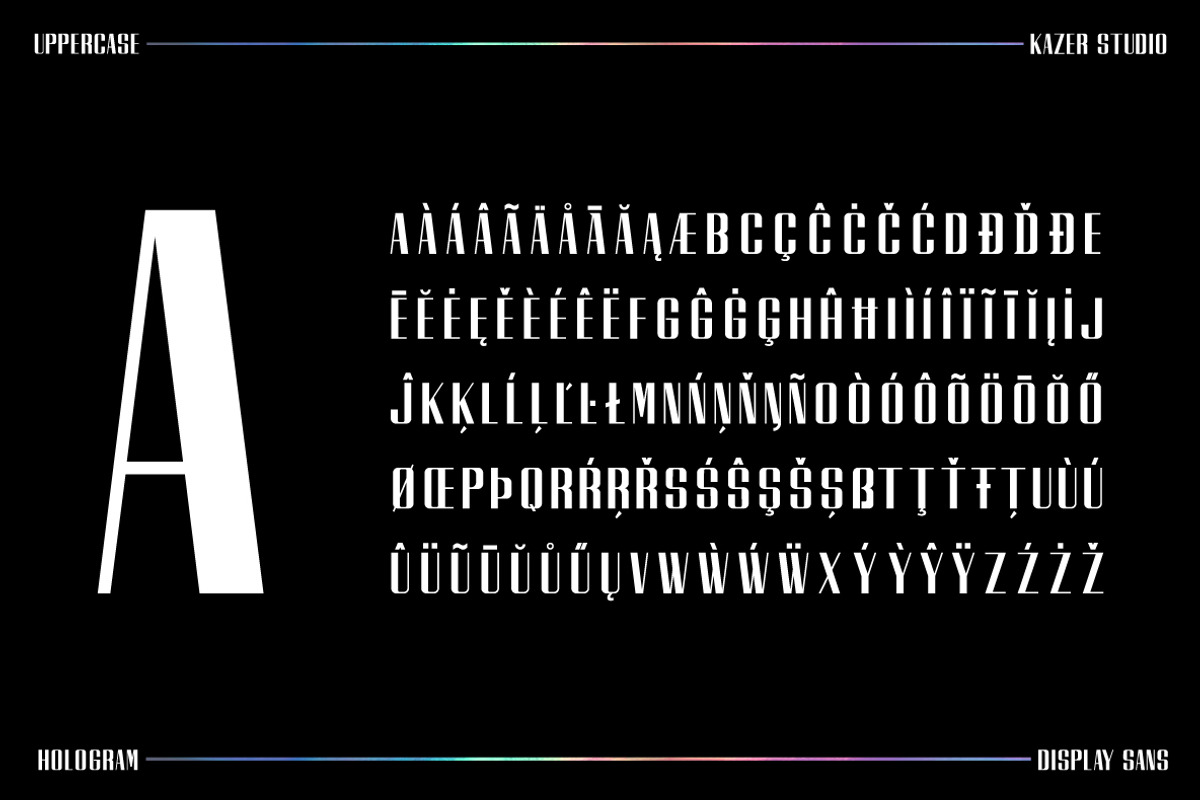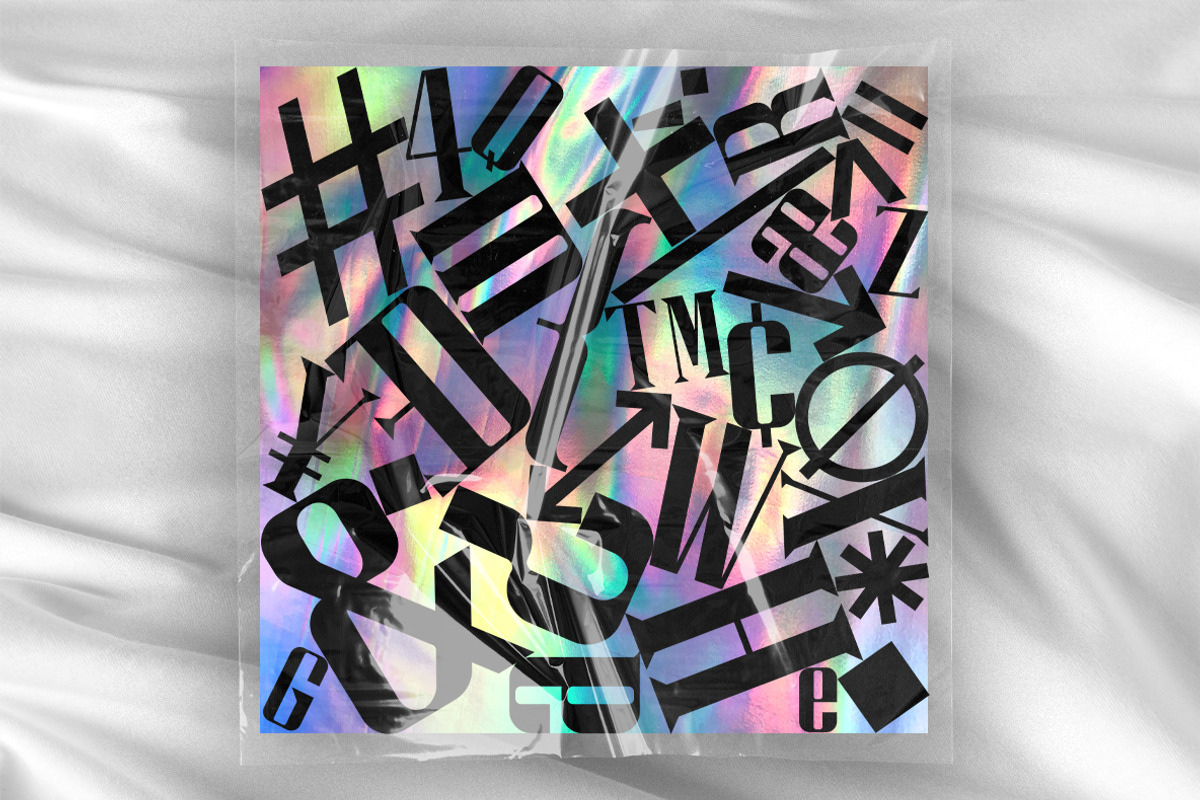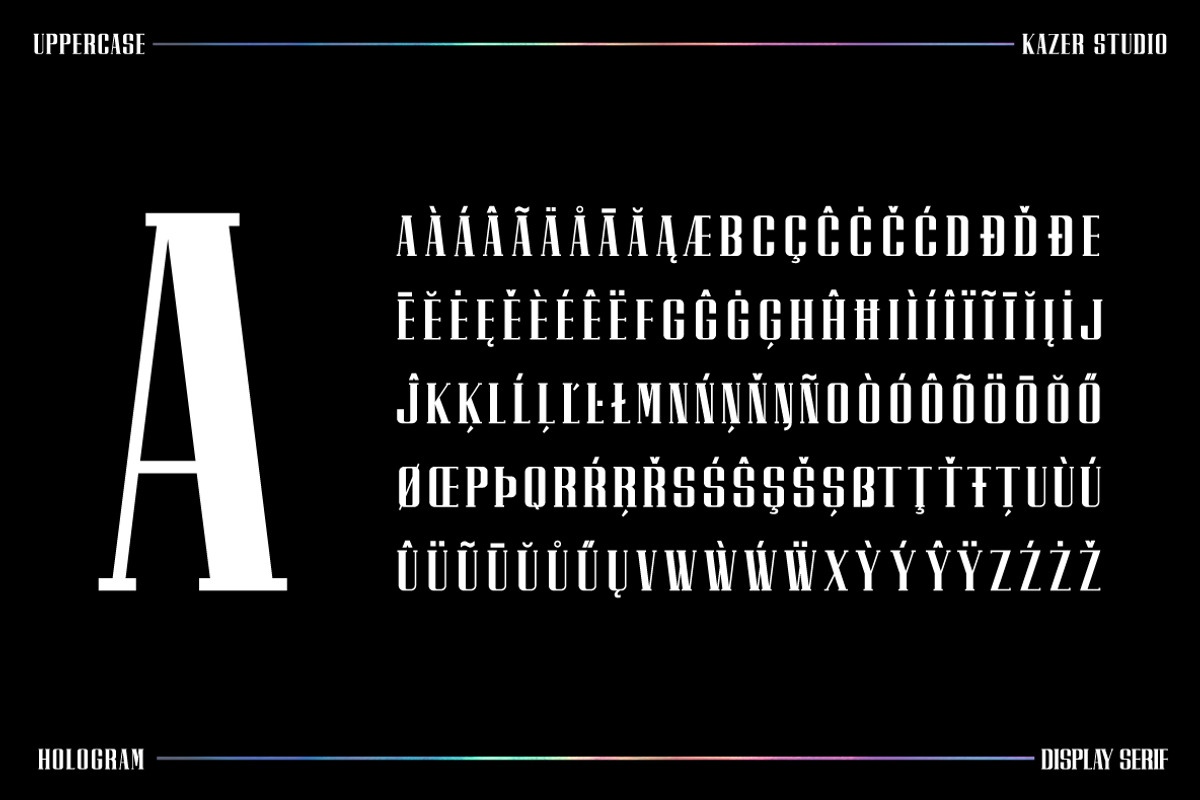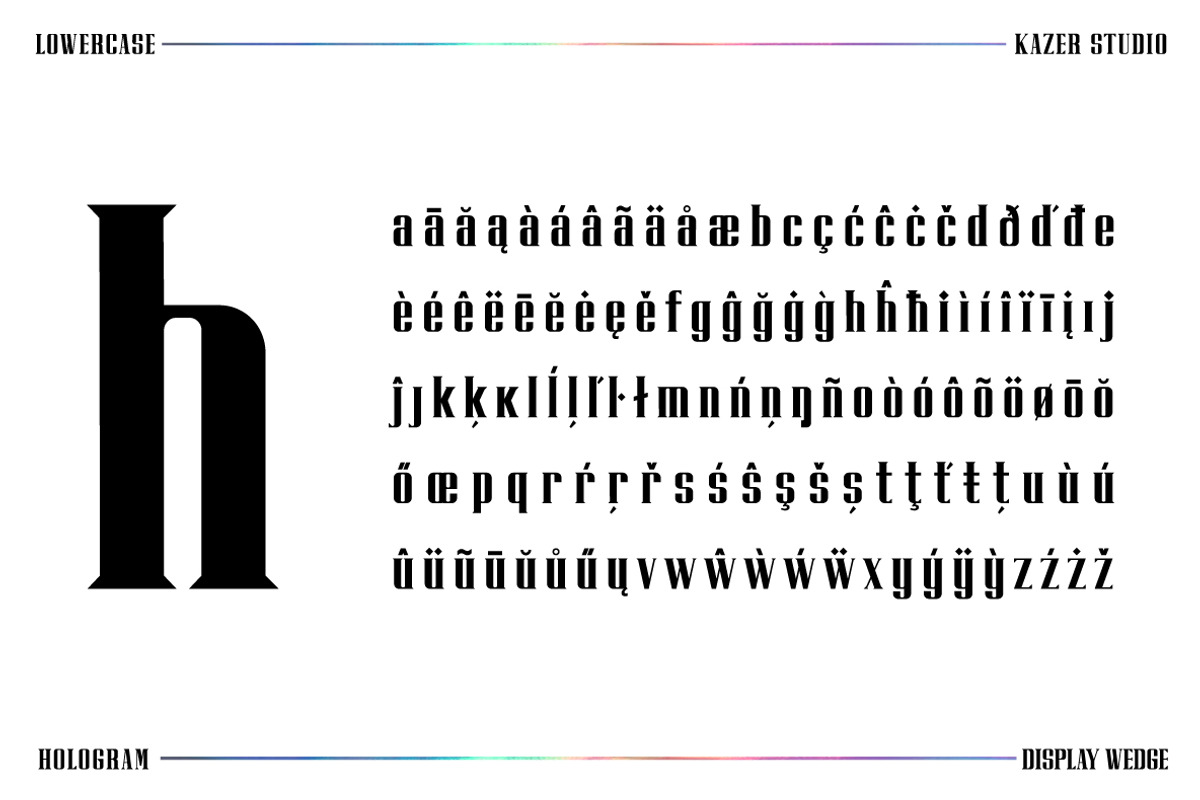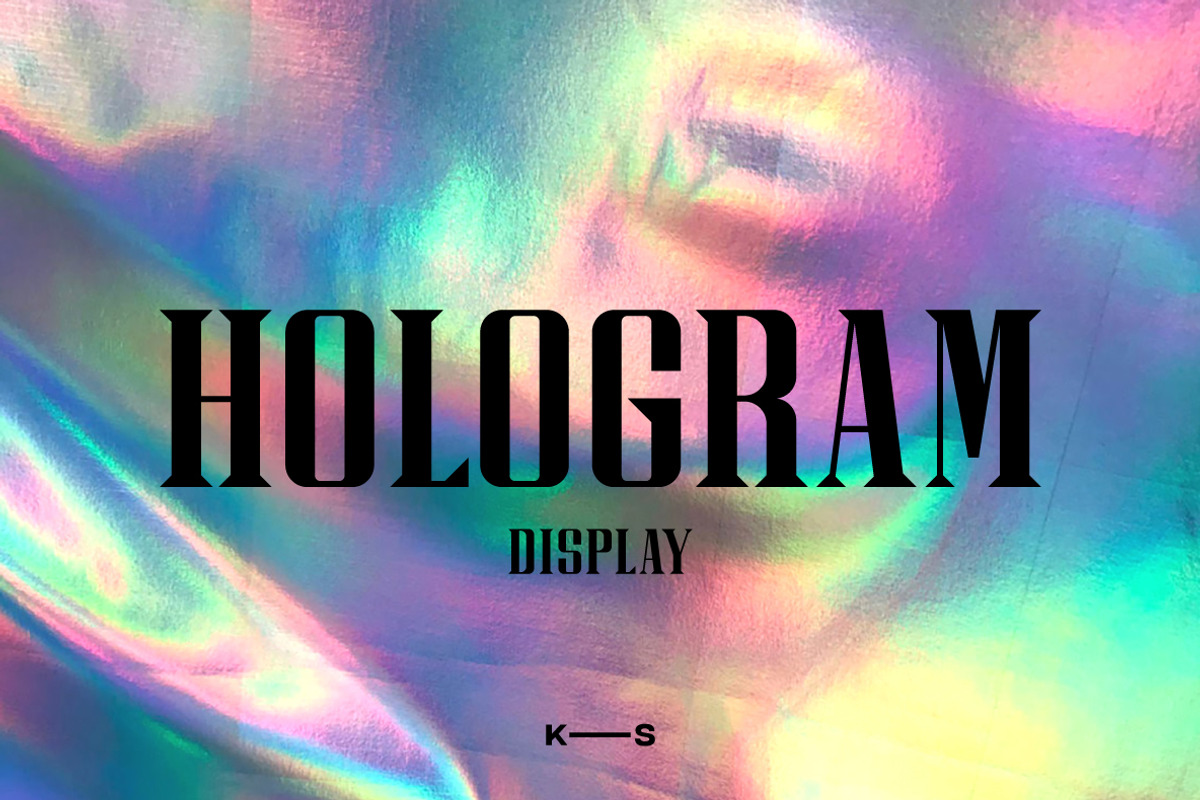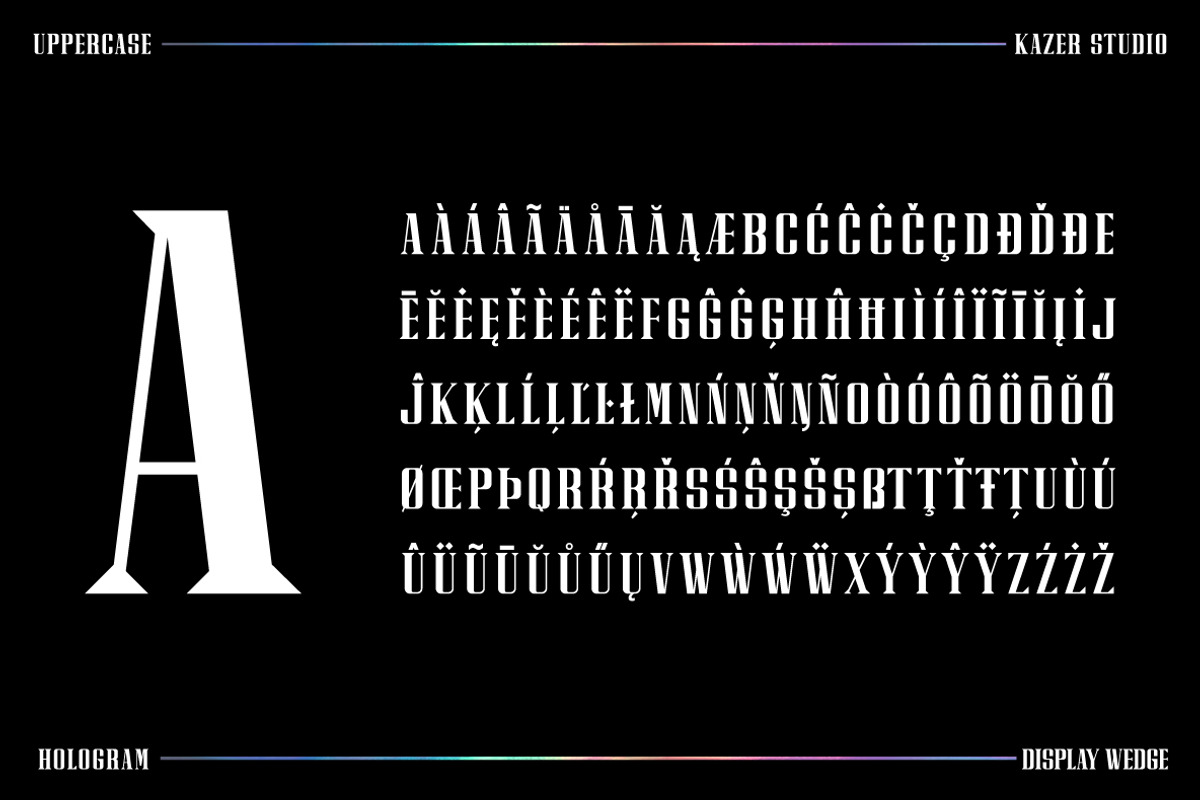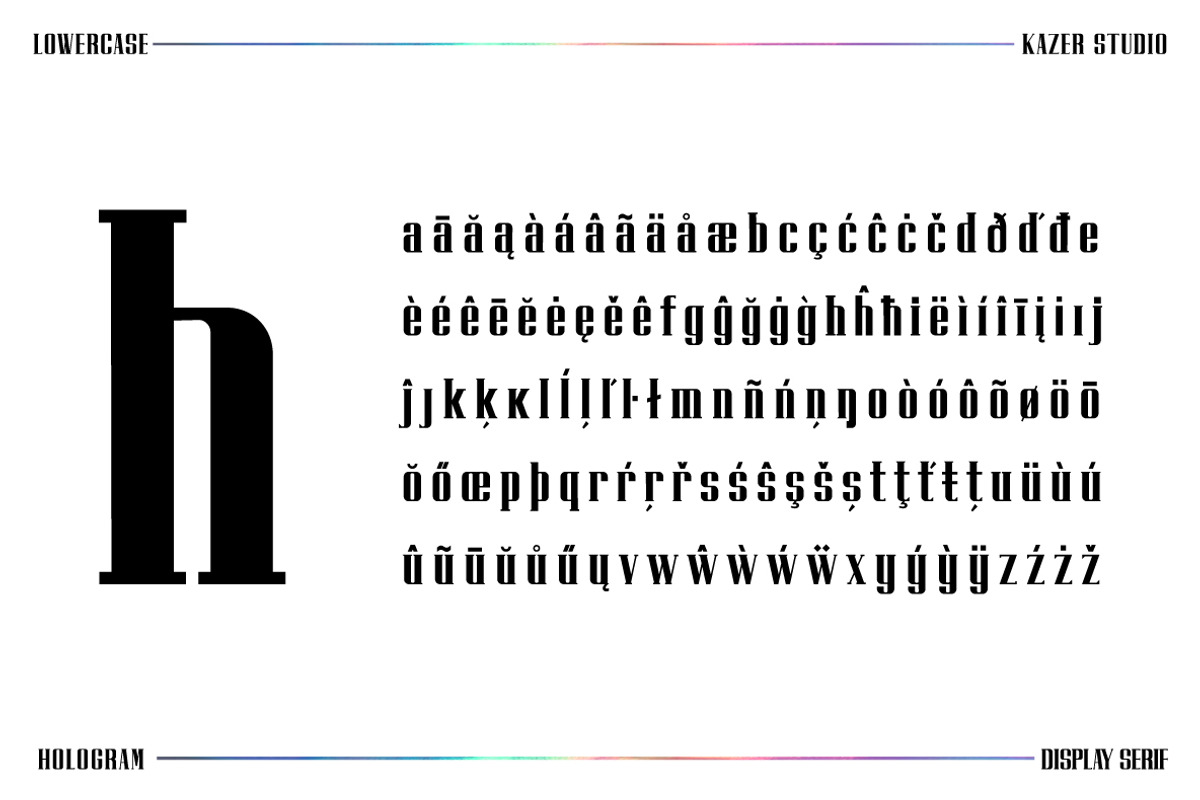
HOLOGRAM - Display Font
HOLOGRAM is a font inspired by a combination of the future and the past. The intention was to design a font that was most effective when applied to largely displayed text like headings, rather than for smaller extended bodies of text.
There are 3 distinctive styles offered in the hologram font family. Each style contains over 350+ glyphs per style with support for up to 26 languages as well as specialised kerning & spacing.
Display Sans: this style is the cleanest of the 3 fonts. There are no serifs attached to the ends of the strokes, although the stroke weight is varied from thick to thin depending on the letters.
Display Serif: this style contains modern serifs at the ends of most character strokes that give more structure to the shapes. A majority of the serifs are horizontal in direction with few characters containing vertical serif details.
Display Wedge: the most bold of all is the wedge serif style offered. Featuring thick and thin triangular serifs at the ends of character strokes. This style is most effective in large displays & titling uses.
- HOLOGRAM Display Sans
- HOLOGRAM Display Serif
- HOLOGRAM Display Wedge